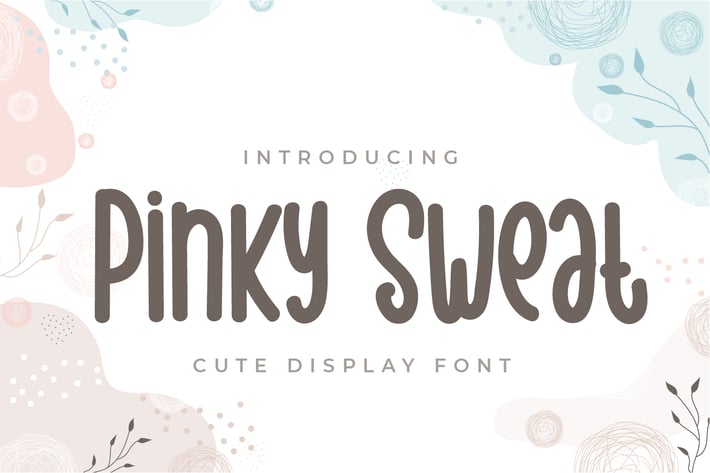
Pinky Sweat - Cute Display Font
Introducing Pinky Sweat - Cute Display Font
Pinky Sweat is a bold and cute script font. Clean and a little bit quirky, this font is the perfect fit for all of your logos, branding, social media, and crafty DIY projects.